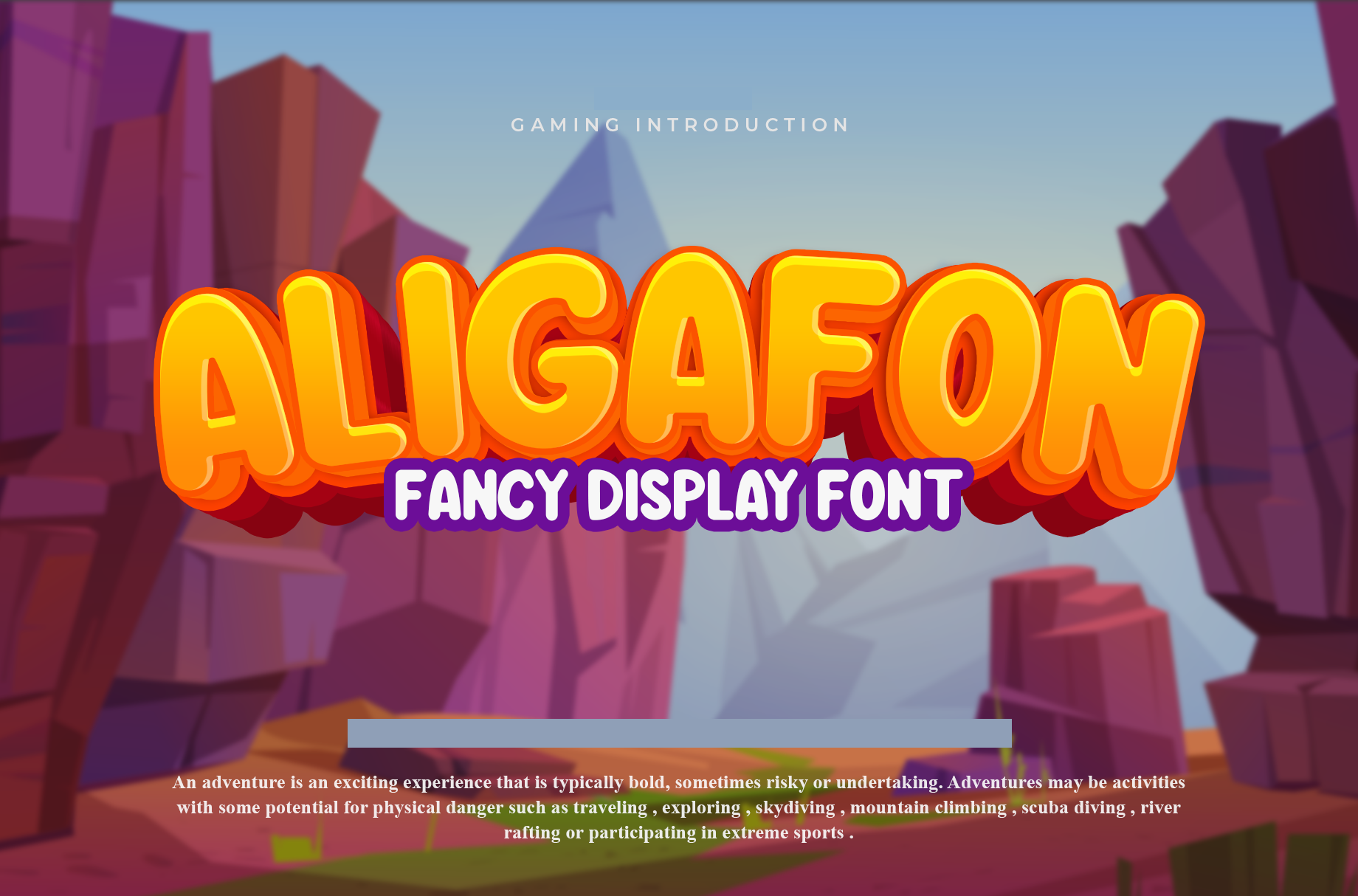
Aligafon Fancy Display Font
Aligafon Fancy Display Font is a vibrant, bold typeface designed for gaming and adventure themes. Perfect for titles, logos, and dynamic digital media, its colorful, three-dimensional letterforms create an exciting visual impact. Ideal for video game intros, posters, and adventurous branding, this font blends fun and energy with versatility. Crafted for designers seeking a standout aesthetic, Aligafont enhances storytelling with its playful yet robust design. Suitable for print and online projects, it brings a sense of thrill and creativity to every application